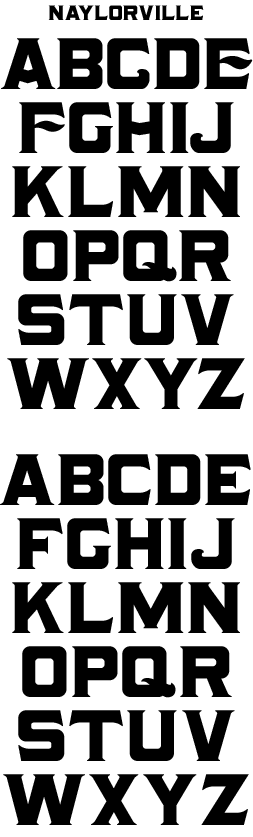
LHF Naylorville This style was popular around the late 1800's. Very versatile and easy to read. Includes full punctuation, accent characters and numerals.